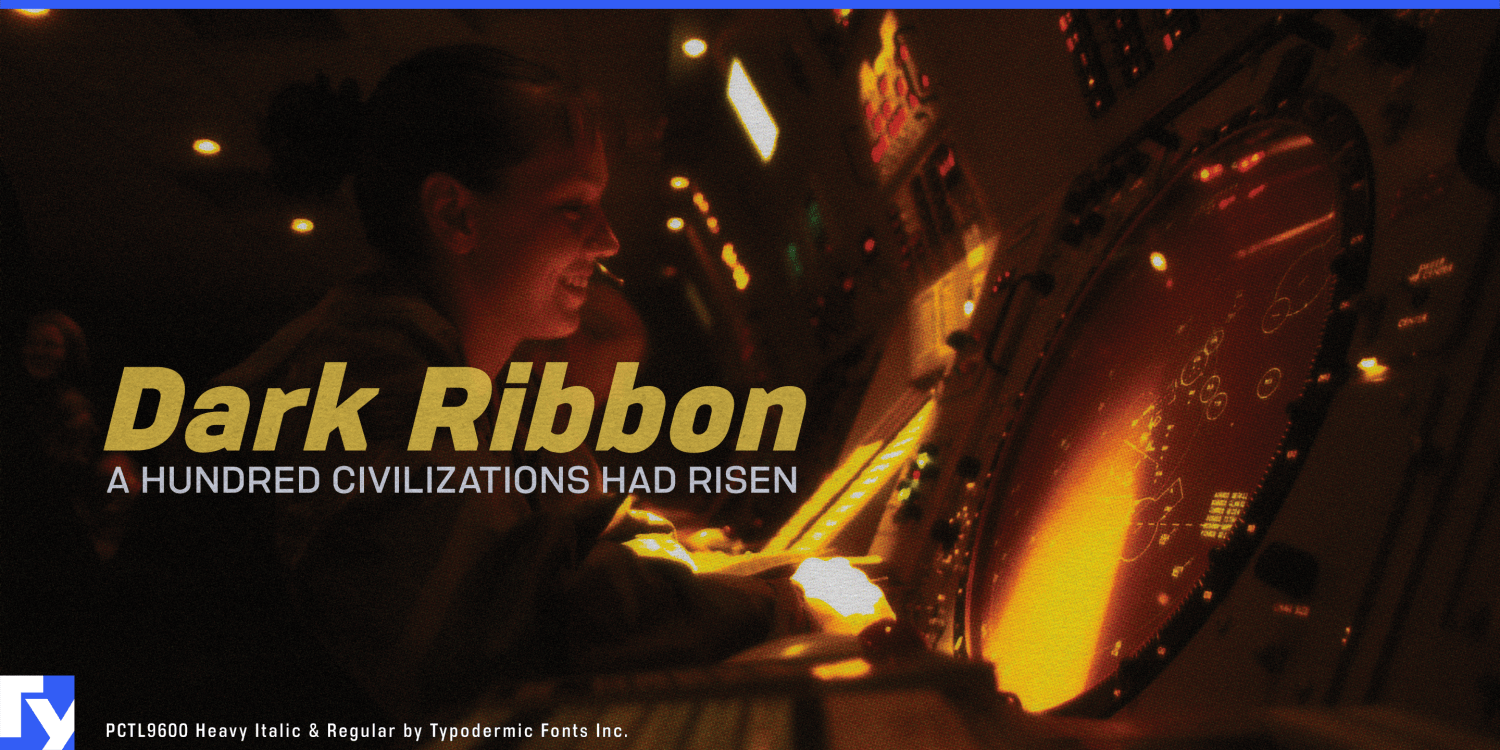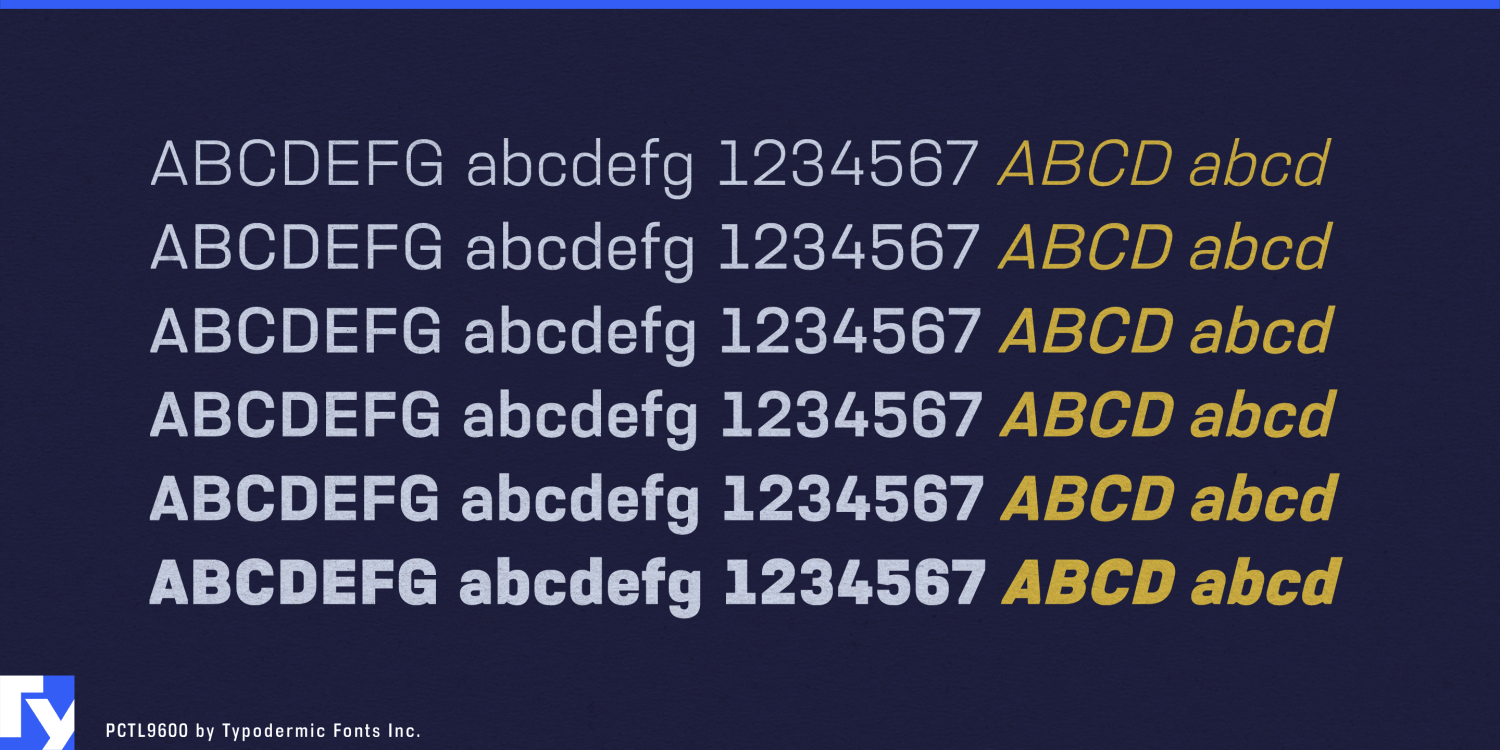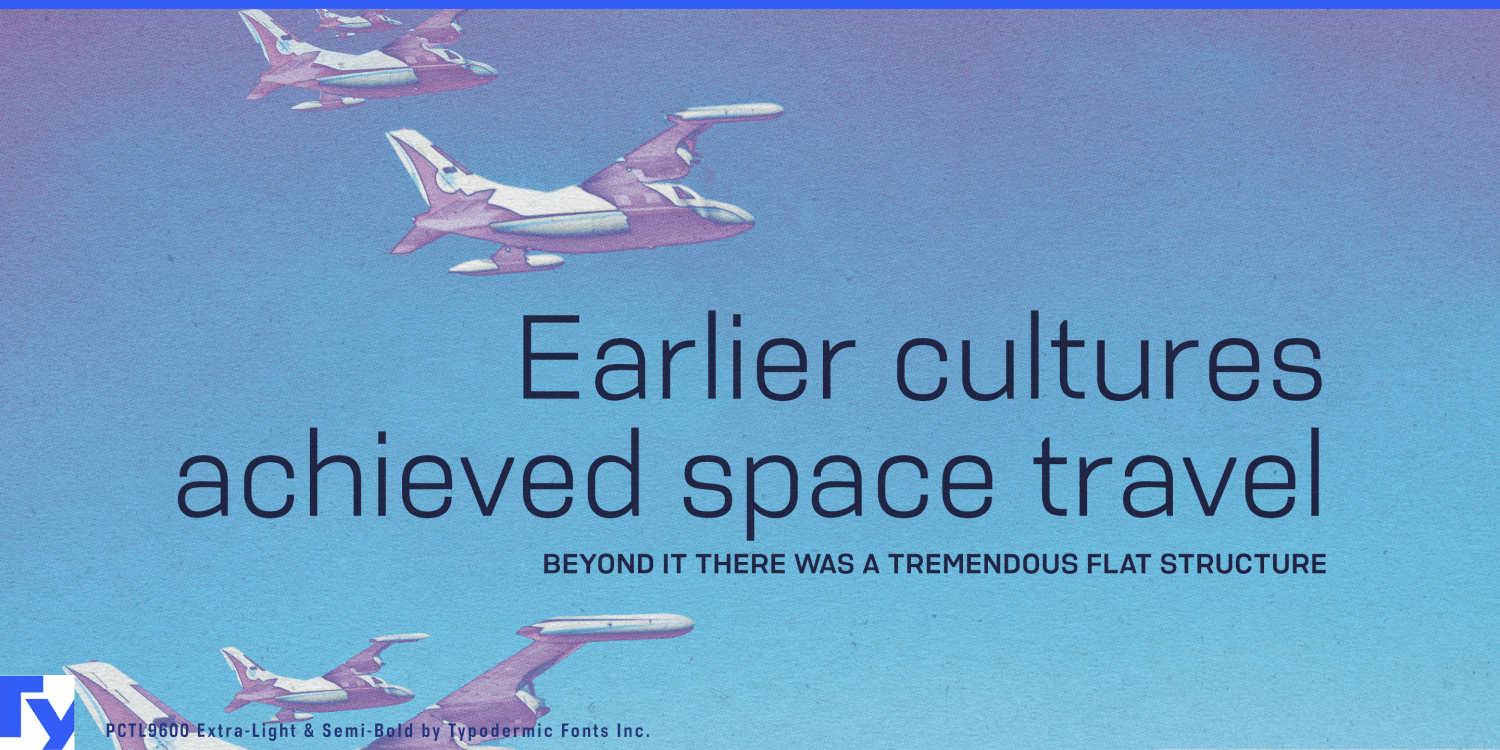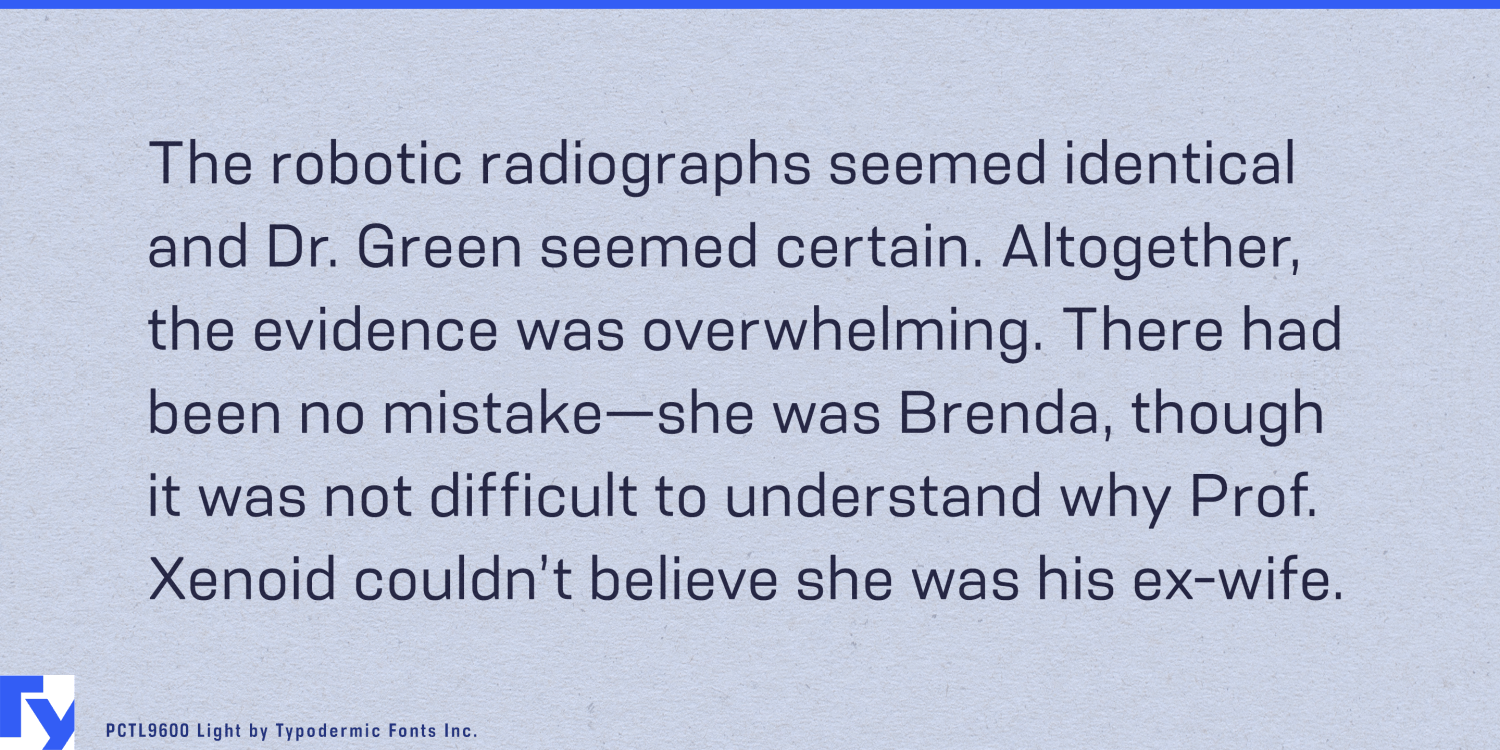
About PCTL9600
PCTL9600 is the epitome of technical precision in typeface design. This sans-serif font family doesn’t just communicate—it computes, calibrates, and delivers with unerring accuracy. Stripped of superfluous embellishments, PCTL9600 presents…